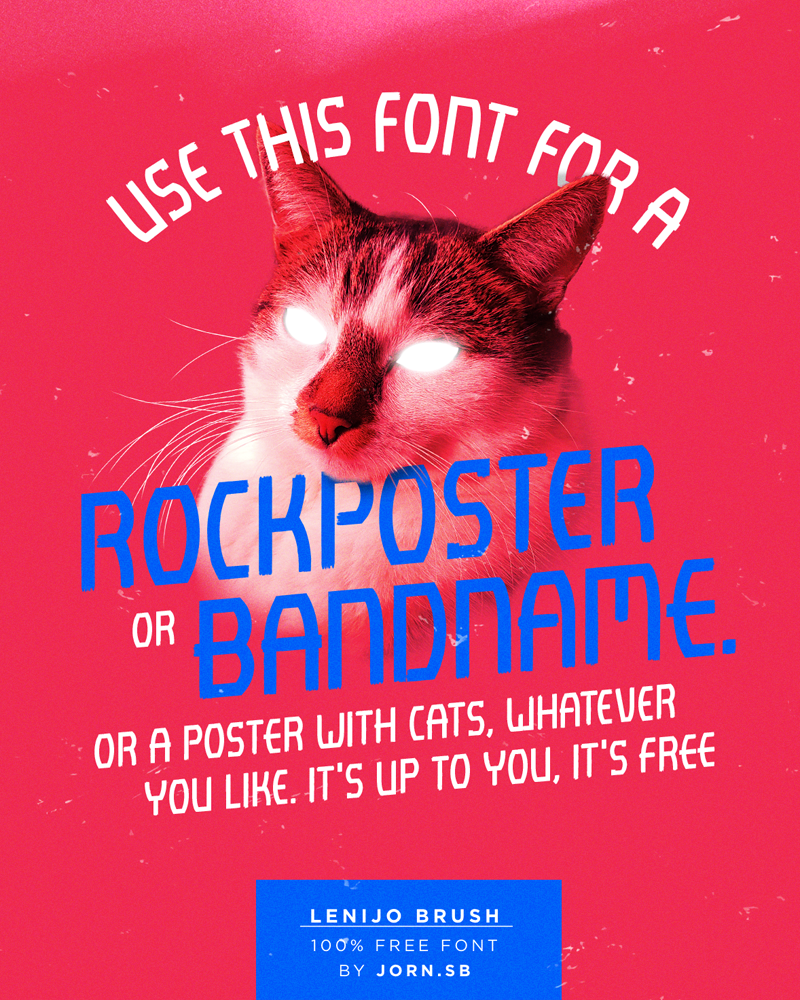
Preview and download Lenijo Brush Font. Created by Jorn.sb in Fancy Various styles with 100% Free license.
Great for Rockposters or bandnames... or of course a poster with cats This is a 100% Free Font and you can use it for everything you like No need for any donation But I'd love you to share your work with me & follow my Instagram for more freebies @jornsb Thank you! |